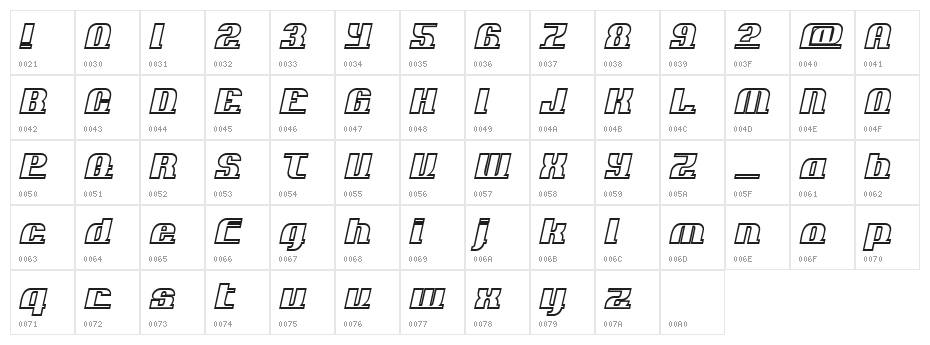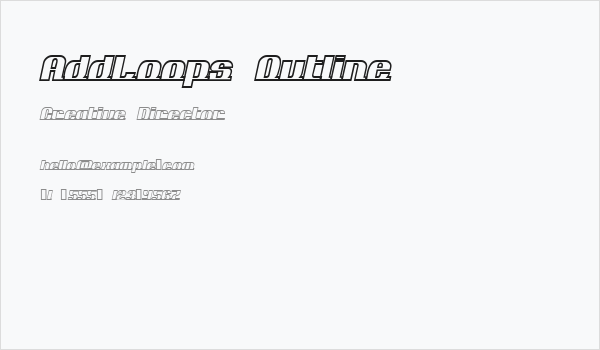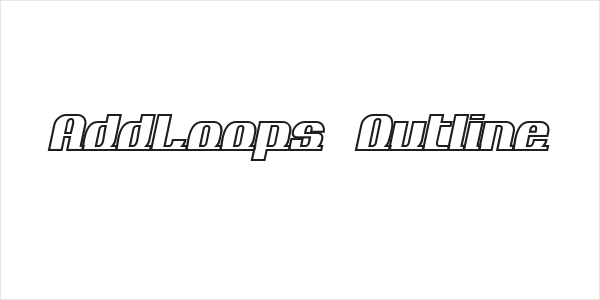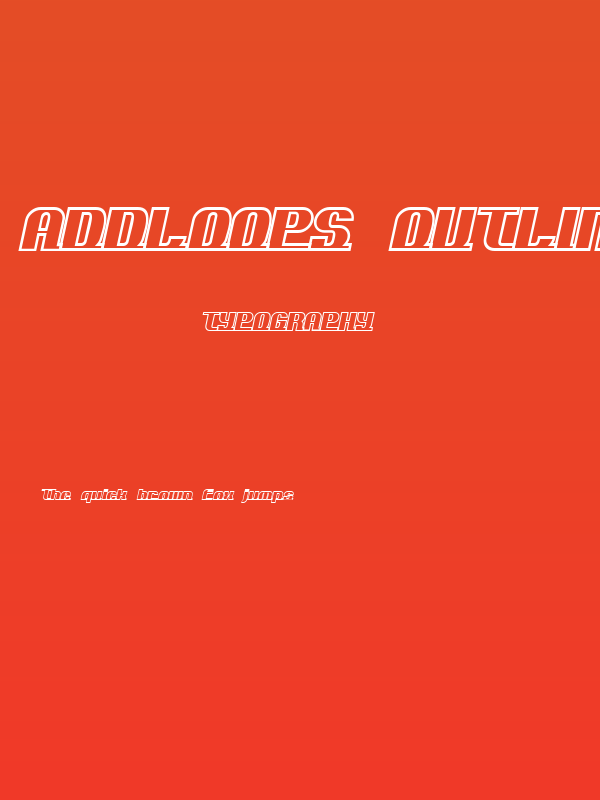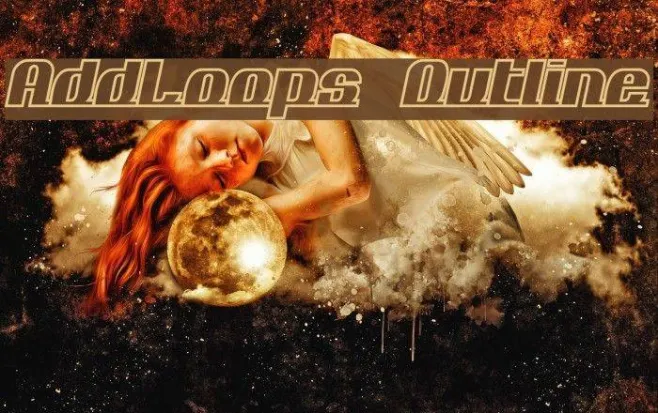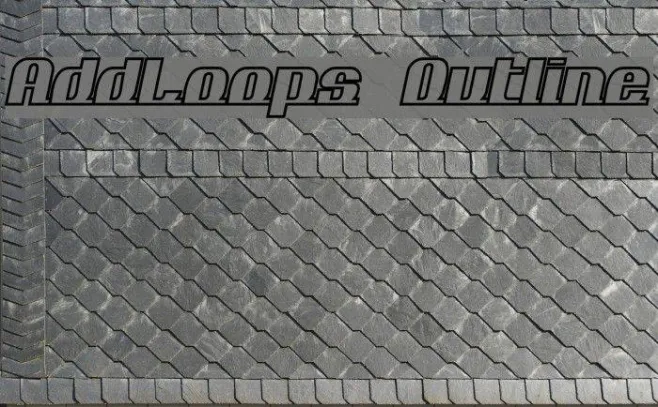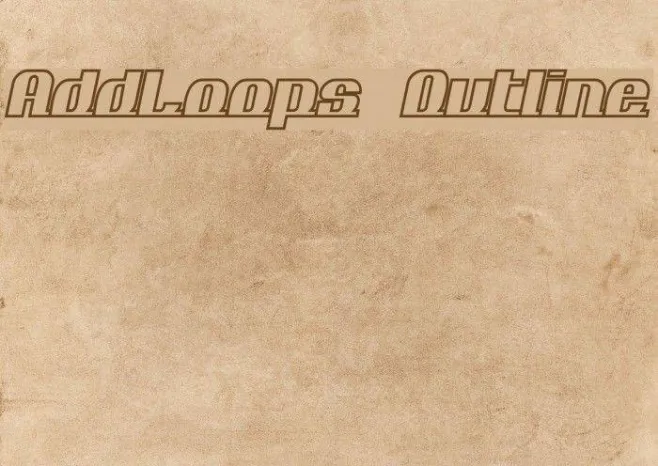
AddLoops Outline Font
AddLoops Outline Description
This font features a bold, outlined style with a modern and futuristic appearance. The characters are designed with a distinct slant, giving them a dynamic and forward-moving look. The uppercase and lowercase letters maintain a consistent height, creating a uniform appearance across the text. The numbers and special characters follow the same stylistic approach, ensuring a cohesive design. The font's outline adds a sense of depth and dimension, making it suitable for eye-catching designs. Its geometric shapes and clean lines contribute to its contemporary feel, making it ideal for projects that require a strong visual impact.
| Proposed Projects | Ideal for futuristic branding, tech-related designs, posters, and headlines. |